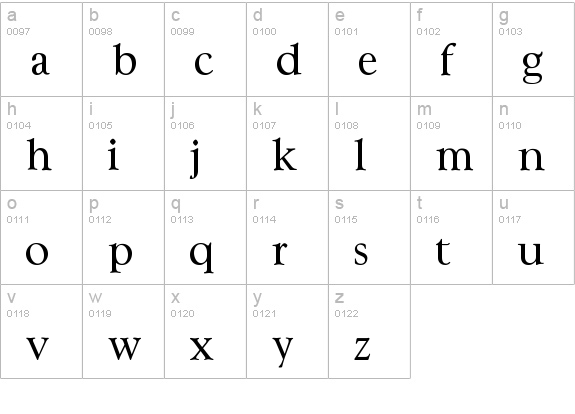
GoudyRegular Font Details
GoudyRegular is a classic and elegant serif font that exudes sophistication and timelessness. With its delicate serifs and balanced letterforms, this font is perfect for adding a touch of refinement to any design project. Whether you are creating invitations, branding materials, or editorial layouts, GoudyRegular will elevate your work with its graceful appearance. What makes GoudyRegular even more appealing is that it is available for free download at FontsMarket.com. This means that you can easily access this beautiful font and use it in your projects without any cost. Don't miss out on the opportunity to enhance your designs with the timeless beauty of GoudyRegular - download it today and add a touch of elegance to your creations.